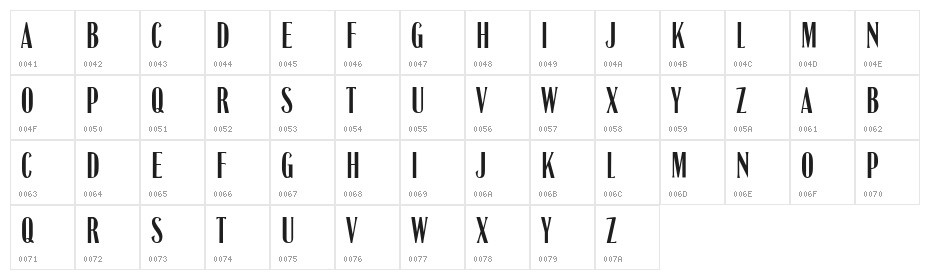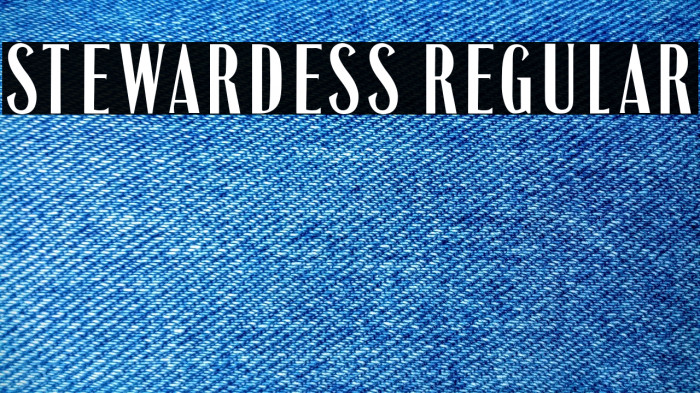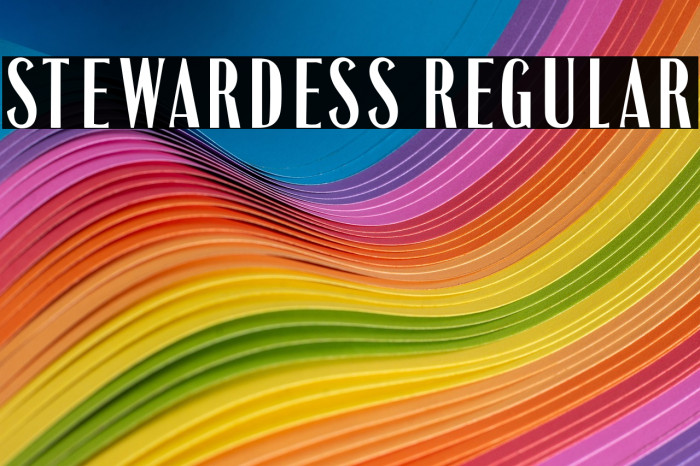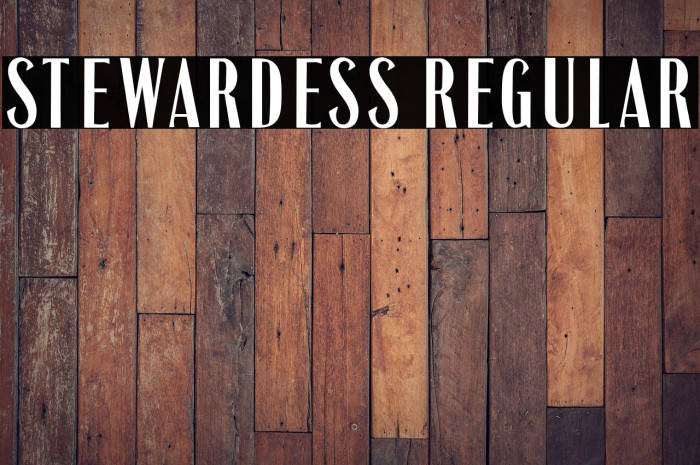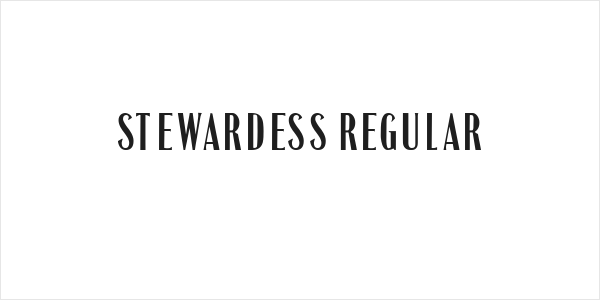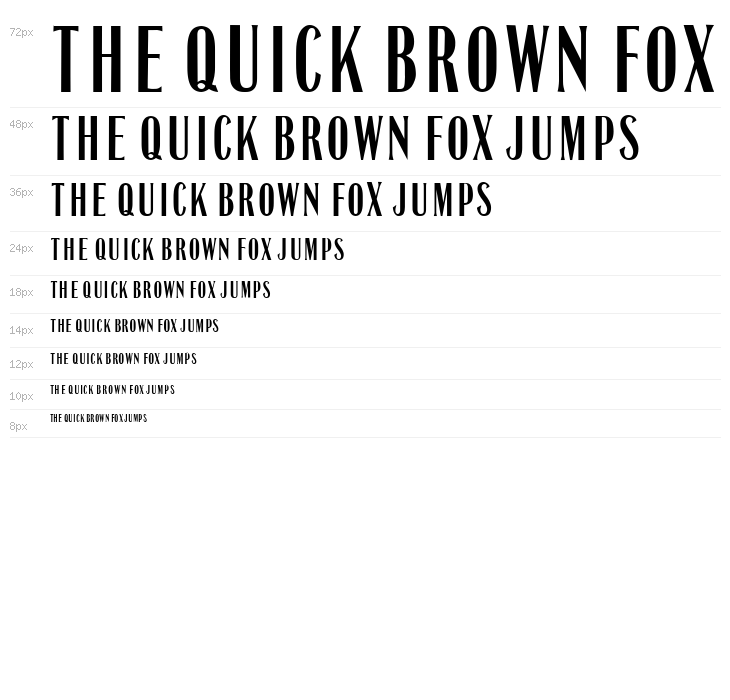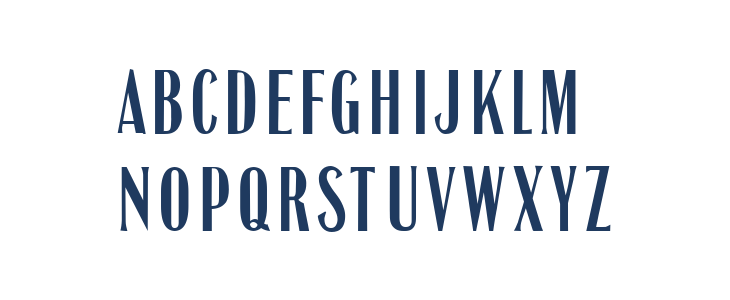
Stewardess Regular Font
| श्रेणियाँ | Retro |
| चौड़ाई | Condensed |
| समग्र शैली | Vintage |
| उपयोग का मामला | Headlines, Logos, Editorial design |
| सुझाए गए प्रोजेक्ट | Ideal for branding, editorial design, advertising, and any project requiring a sophisticated touch. |